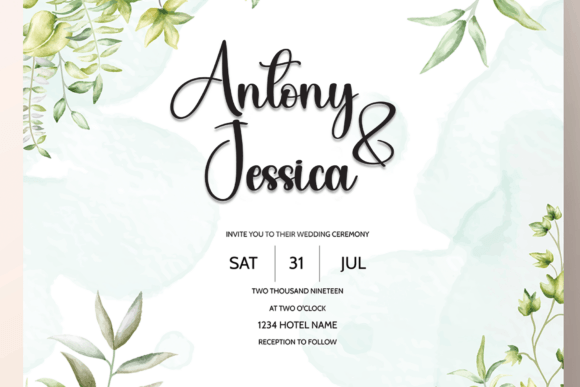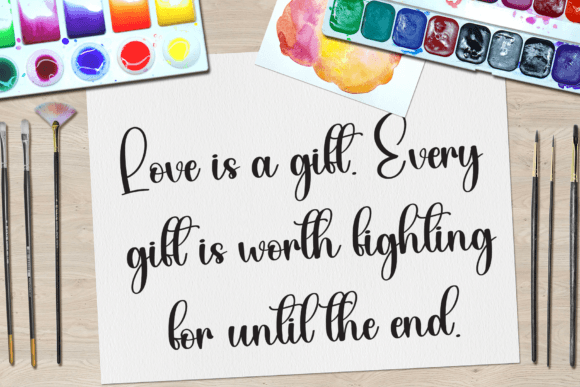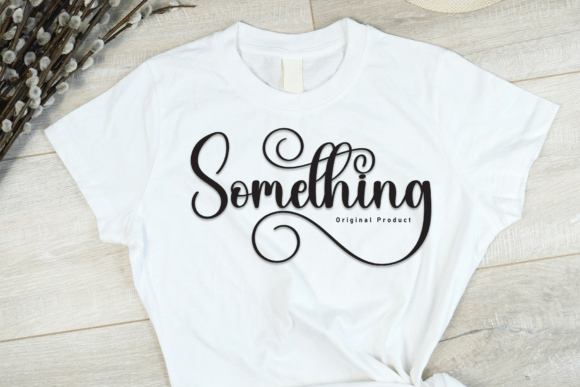
Birthday Font
Birthday is a beautiful script font with flowing, hand-drawn letters. It has a cozy and elegant look, perfect for cards, invitations, or any design that needs a personal and stylish touch.